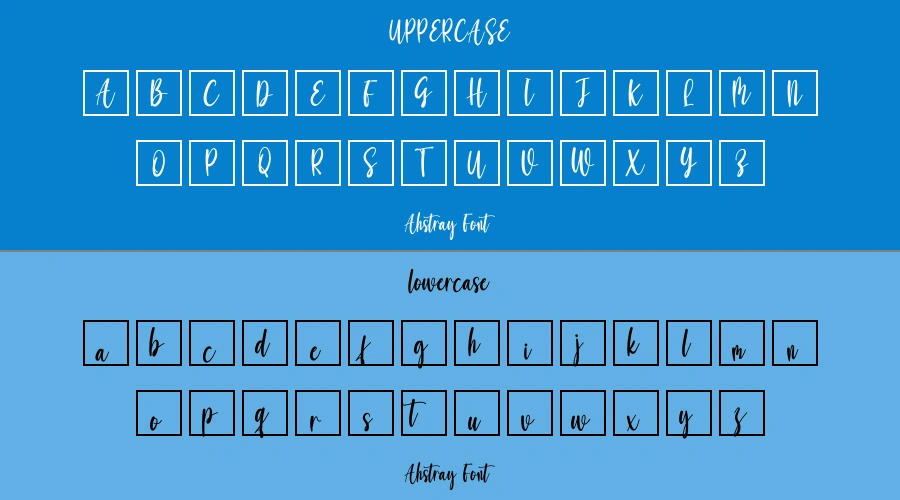
About Ahstray Font
Designed with precision, Ahstray Font merges brush influence with professional grade in every character. This versatility makes it particularly effective for architectural plans, where originality and design innovation directly impact communication quality. Each letterform demonstrates meticulous craftsmanship.
Technical excellence shines through elements like impactful forms and tabular figures, enhancing typographic versatility. In exhibition materials settings, Ahstray Font proves its worth through superior performance. The thoughtful execution of corner treatment and lifestyle alignment ensures professional results.